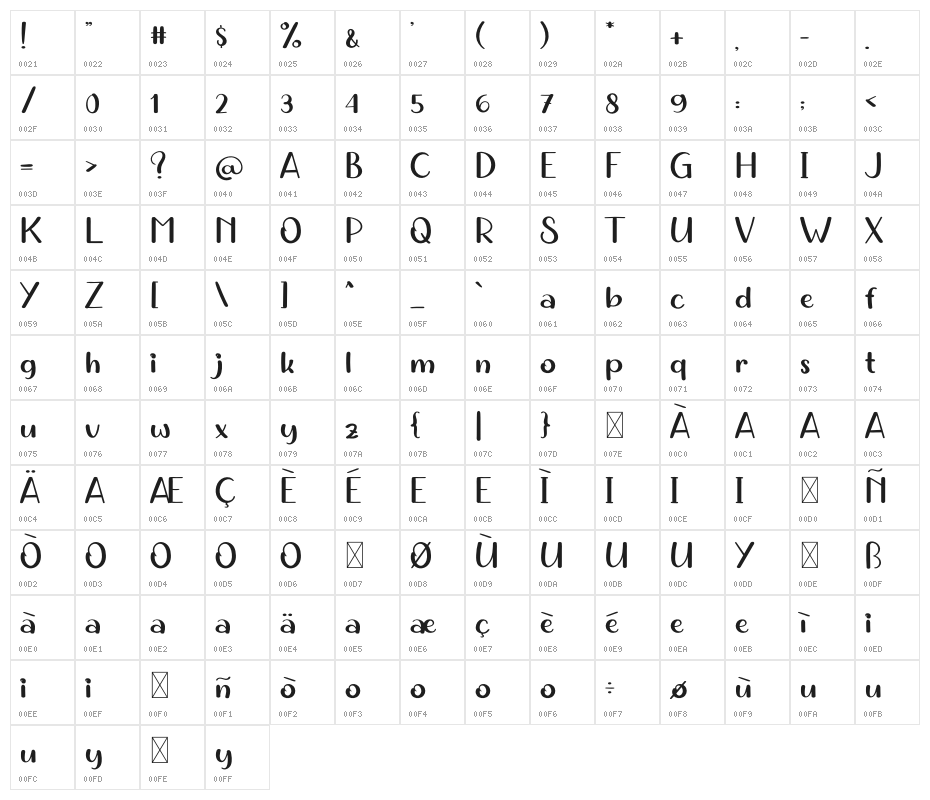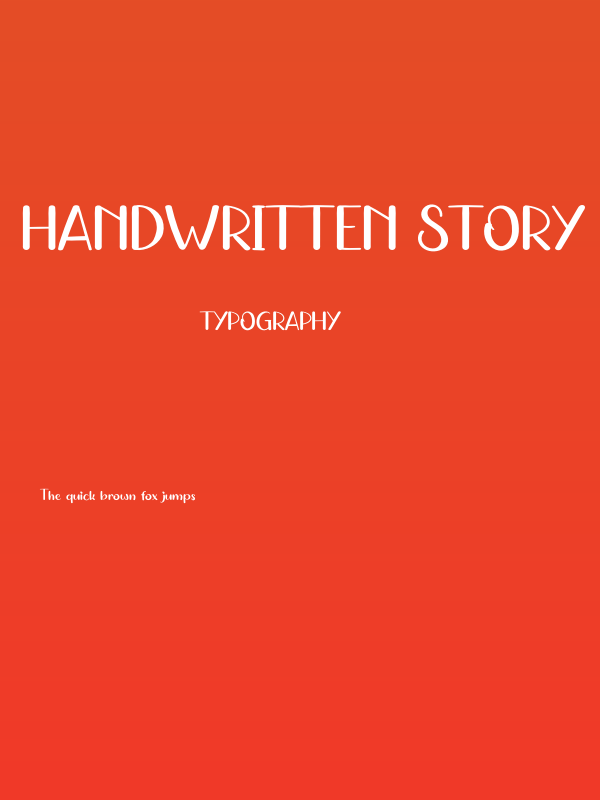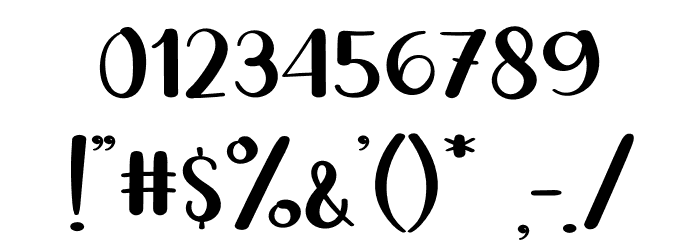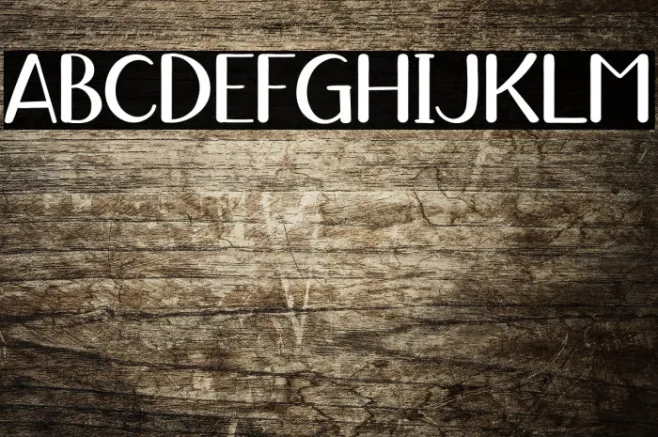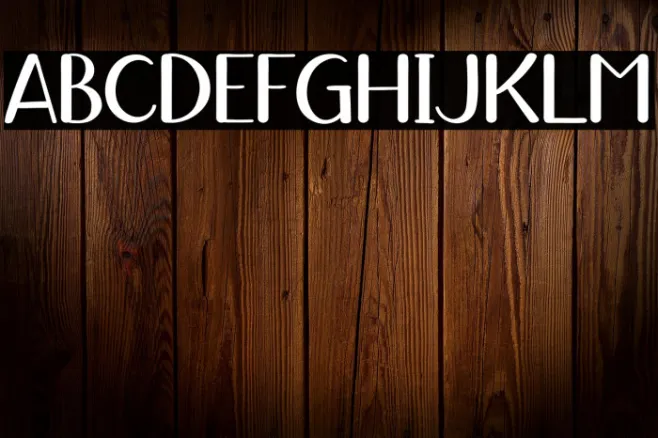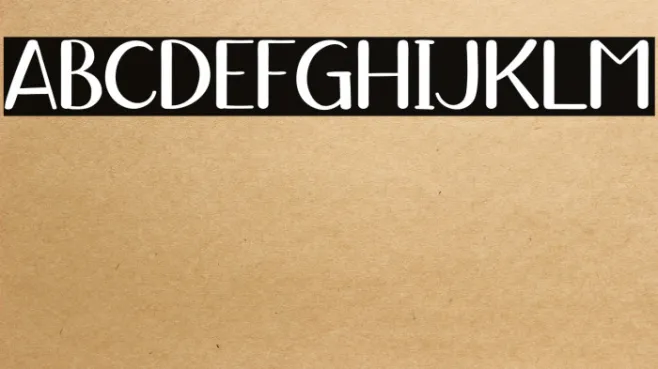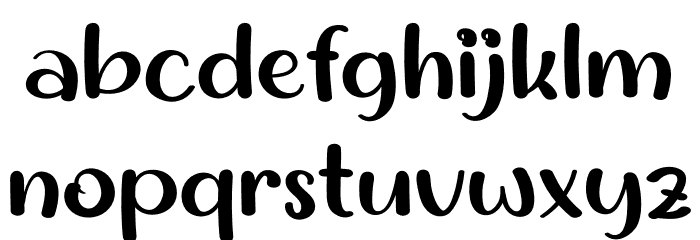
Handwritten Story Font
Handwritten Story Description
This font features a playful and whimsical handwritten style, characterized by its smooth curves and slightly irregular shapes that mimic natural handwriting. The uppercase letters are bold and slightly condensed, giving a strong presence, while the lowercase letters maintain a friendly and approachable feel. The numbers and special characters are crafted with the same playful touch, ensuring consistency throughout. This font's unique charm makes it suitable for projects that require a personal and informal touch, such as invitations, greeting cards, or creative branding.
| Proposed Projects | Ideal for invitations, greeting cards, creative branding, and personal projects. |